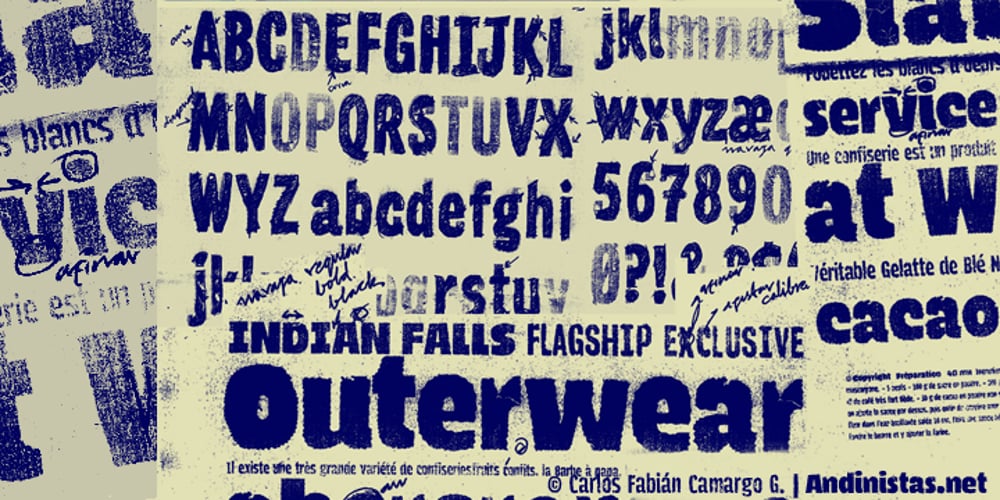
Navaja
Navaja font
Navaja Font Family was designed by Carlos Fabián Camargo Guerrero and published by Andinistas. Navaja contains 6 styles and family package options. Very few letter types with the context of grunge style fonts offer hierarchies to differentiate words in sentences or paragraphs. With Navaja I developed a font family that meets this need. This family is useful to organize the information into a hierarchy with an eroded look. Its central idea mixes grotesque, geometric and humanistic letter conventions. This way, Navaja is a grunge-sans with dense proportions to make graphic design with eroded character. Its main purpose appeared when one of my customers asked me for a t-shirt design for a fan club of an important football player. For this reason its starting point were stained and muddy letters characterizing the toughness and coldness of the sport. Over time their glyphs began to imitate the robustness of “wood type & Tuscan Type” widely used in posters in the late nineteenth century. Its purpose was strengthened in a family with 6 members that when mixed they produce mind catching contrast levels ideal for designing T-shirts, stickers, flyers, brochures, posters, billboards, cinema or TV. Therefore its variants are short up and down height X combined with different widths that by working together produce information that radiates outstanding apparently destroyed controlled violence. Navaja Dingbats consists of 52 illustrations useful for frames and textures. In that vein, the origin of each member comes from skeletons of Roman and Italic calligraphy. The low amount of contrast between thick and thin lines matching the contours apparently gnawed but strictly regulated by optical adjustments equating the sum between full and empty areas. Factors such as finishes, shapes and counter internal and external forms are meticulously planned although its scruffy look which strategic arrangements are offset to provide color typographical homogeneous. And in conclusion, I have plans to continue expanding the family with more complete versions in the future.